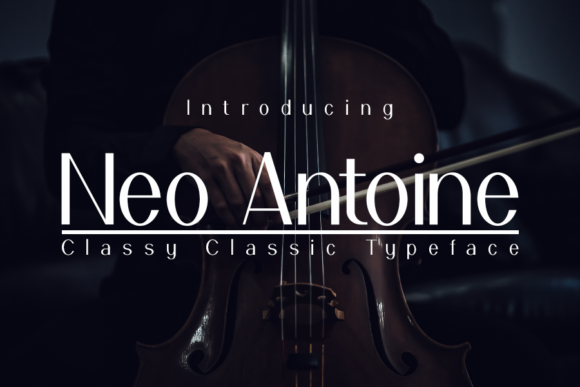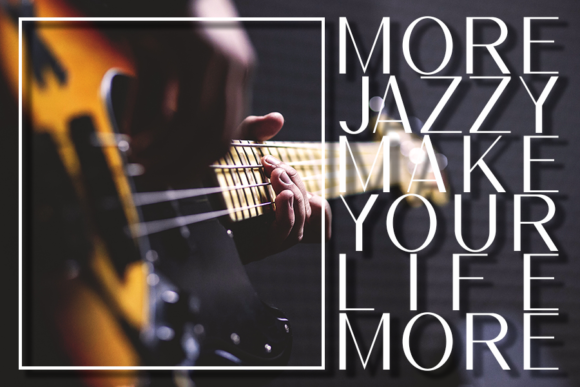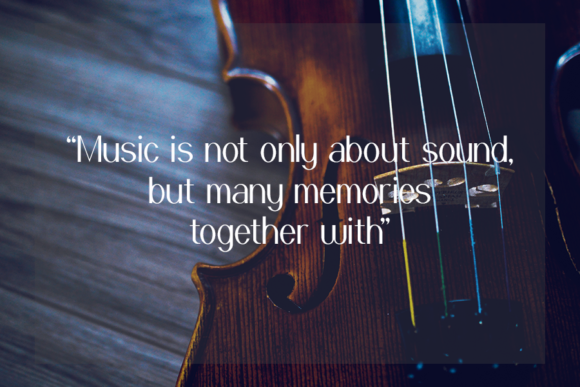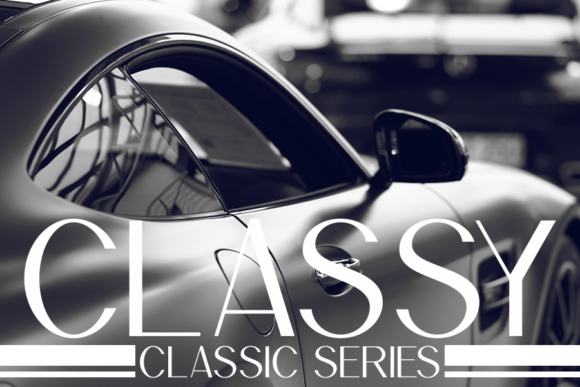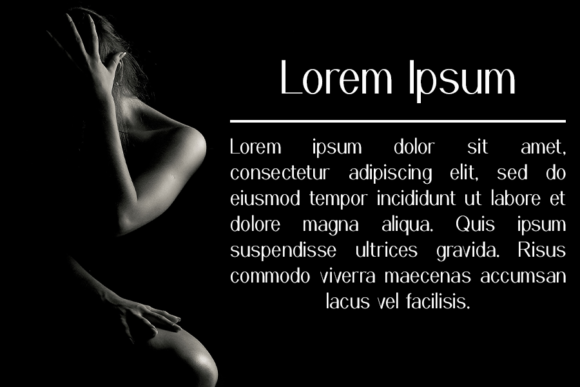
Neo Antoine Font
About Neo Antoine Font
Neo Antoine is a clean and minimalist sans serif font. There are 3 styles including Regular, Light and Bold.
A stunning and modern font that boasts clean lines and sharp edges. It’s the ideal font for adding extra charm to your next designs.